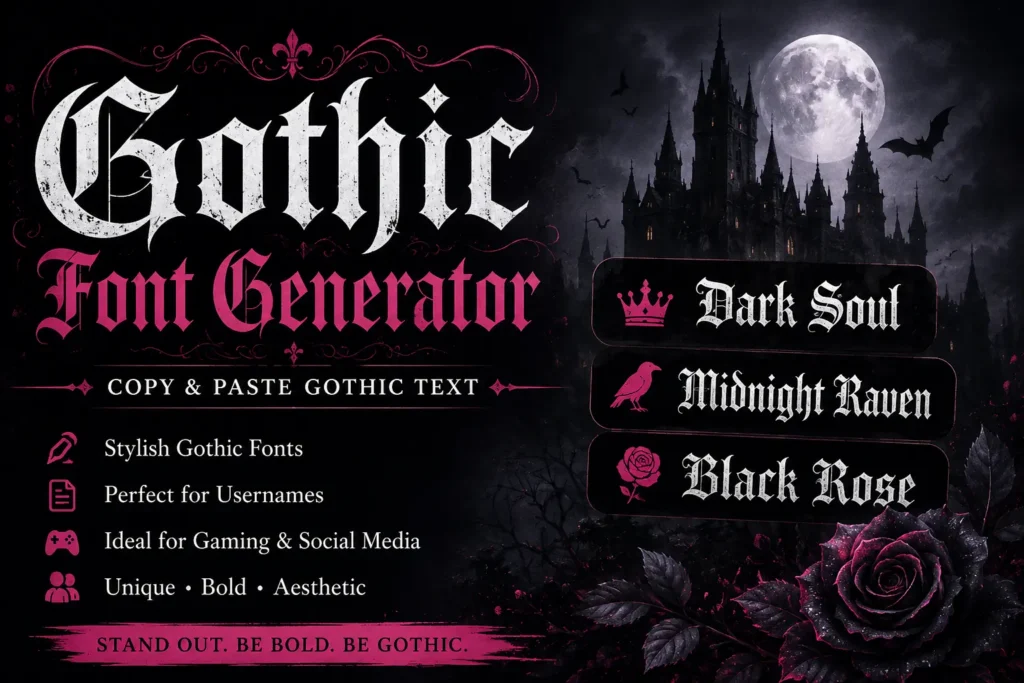
Gothic font copy and paste tools allow users to transform ordinary text into decorative Gothic-style lettering that can be used across social media platforms, messaging apps, gaming profiles, and creative projects.
🖤 Unlike traditional downloadable fonts, most online Gothic text generators create Unicode characters that visually resemble Gothic or Blackletter typography.
✨ This means users can copy the generated text and paste it directly into supported platforms without installing any font files.
✦ How Gothic Font Copy and Paste Works ✦
Many people assume Gothic text generators install new fonts. In reality, most generators convert standard characters into Unicode symbols that look similar to Gothic lettering.
♡ The Process Is Simple
Because the characters already exist within Unicode, no font installation is required.
✦ Gothic Font Copy and Paste Examples ✦
🔤 Gothic Alphabet Examples
Normal Text:
ABCDEFGHIJKLMNOPQRSTUVWXYZ
Gothic Style:
𝕬 𝕭 𝕮 𝕯 𝕰 𝕱 𝕲 𝕳 𝕴 𝕵 𝕶 𝕷 𝕸 𝕹 𝕺 𝕻 𝕼 𝕽 𝕾 𝕿 𝖀 𝖁 𝖂 𝖃 𝖄 𝖅
✦ Gothic Fonts for Instagram ✦
Instagram users frequently use Gothic text in:
• 📸 Profile names
• 👤 Display names
• 📝 Bios
• ✨ Story highlights
• 💬 Captions
♡ Popular Instagram Gothic Text Examples
𝕯𝖆𝖗𝖐 𝕾𝖔𝖚𝖑
𝕸𝖎𝖉𝖓𝖎𝖌𝖍𝖙 𝕽𝖆𝖛𝖊𝖓
𝕭𝖑𝖆𝖈𝖐 𝕽𝖔𝖘𝖊
🖤 Gothic text helps profiles stand out while creating a distinctive aesthetic identity.
TikTok creators often use Gothic text to match:
• 🌙 Dark aesthetic content
• 🖤 Alternative fashion pages
• 🎮 Gaming videos
• 🐉 Fantasy edits
• 🎵 Music-related content
♡ Popular TikTok Gothic Text Examples
𝕲𝖔𝖙𝖍𝖎𝖈 𝕼𝖚𝖊𝖊𝖓
𝕻𝖍𝖆𝖓𝖙𝖔𝖒 𝕾𝖔𝖚𝖑
𝕮𝖗𝖎𝖒𝖘𝖔𝖓 𝕹𝖎𝖌𝖍𝖙
✨ Gothic lettering helps TikTok creators build a unique visual style and makes profiles, captions, and video descriptions more noticeable.
Discord communities frequently use Gothic usernames and nicknames because they create a memorable appearance inside gaming servers and social groups.
🎮 Popular Discord Gothic Username Examples
𝕾𝖍𝖆𝖉𝖔𝖜 𝕶𝖎𝖓𝖌
𝕰𝖙𝖊𝖗𝖓𝖆𝖑 𝕽𝖆𝖛𝖊𝖓
𝕻𝖍𝖆𝖓𝖙𝖔𝖒 𝕶𝖓𝖎𝖌𝖍𝖙
✦ Gothic Fonts for Facebook ✦
Facebook users commonly add Gothic text to:
• 👤 Profile names
• 📄 Page names
• 👥 Group titles
• 📝 Posts
• ✨ Bio sections
♡ Popular Facebook Gothic Text Examples
𝕭𝖑𝖆𝖈𝖐 𝕽𝖔𝖘𝖊
𝕯𝖆𝖗𝖐 𝕬𝖓𝖌𝖊𝖑
𝕸𝖎𝖘𝖙𝖎𝖈 𝕾𝖔𝖚𝖑
ℹ️ Compatibility may vary depending on Facebook updates and device support.
✦ Gothic Text for Gaming Profiles ✦
Gaming communities often use Gothic text in:
• 🎮 Steam profiles
• 🏆 Fortnite names
• 🕹️ Roblox usernames
• 💬 Discord nicknames
• 📺 Twitch channels
• ▶️ YouTube gaming pages
⚔️ Popular Gothic Gaming Name Examples
𝕭𝖑𝖔𝖔𝖉𝕶𝖓𝖎𝖌𝖍𝖙
𝕹𝖎𝖌𝖍𝖙𝕽𝖊𝖆𝖕𝖊𝖗
𝕾𝖍𝖆𝖉𝖔𝖜𝕳𝖚𝖓𝖙𝖊𝖗
🎯 Gothic-style usernames help gaming profiles look more distinctive and can match dark fantasy, medieval, horror, or role-playing themes.
✦ Why Use Gothic Text? ✦
People choose Gothic text because it:
• ✨ Looks distinctive
• 🎯 Creates visual impact
• 🎨 Supports aesthetic branding
• 👤 Works well for usernames
• 🐉 Matches fantasy themes
• 🖤 Fits Gothic culture and fashion
• 🎮 Enhances gaming identities
♡ Why It Stands Out
The bold appearance makes text more memorable than standard lettering.
💡 Gothic lettering is popular on social media, gaming platforms, creative projects, and personal branding because it instantly gives ordinary text a unique visual style.
✦ Common Problems With Gothic Text ✦
Some platforms may not support every Unicode character.
⚠️ Possible Issues
• ❌ Missing symbols
• 🔤 Unsupported characters
• 📱 Different appearance across devices
• 🖥️ Limited compatibility in older apps
💡 Quick Tip
Testing the text before using it publicly is always recommended.
✓ Most modern social media platforms, messaging apps, and gaming services support Gothic Unicode characters, but checking how the text appears on different devices can help avoid display issues.
Does Gothic text work on Instagram?
Yes. Many users place Gothic text in Instagram names, bios, captions, and stories.
Does Gothic text work on Discord?
Yes. Discord generally supports most Unicode Gothic characters.